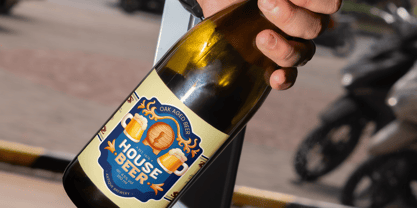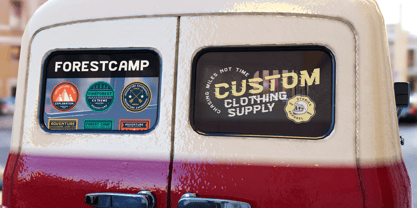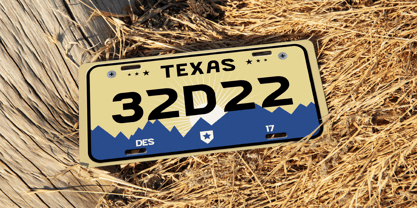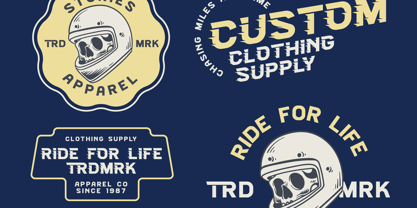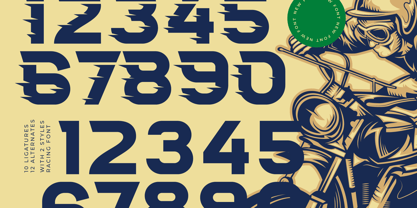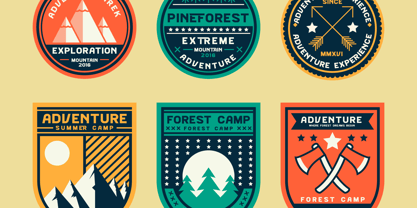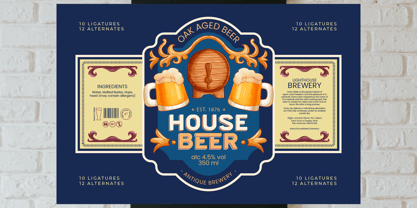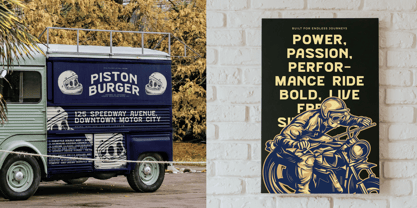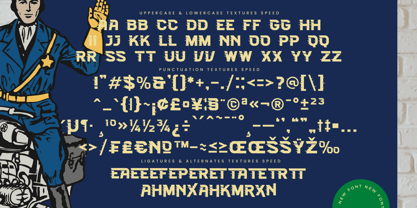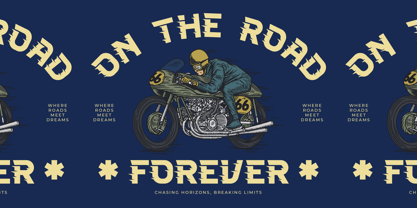
Grand Engine
The Grand Engine Font Family was designed by Heru Utama Putra and published by Timelesstype Studio. Grand Engine contains 4 styles and family package options. More about this family
Grand Engine - Racing Display Font , from Timelesstype , Suitable for any projects such as: logos, branding projects, homeware designs, product packaging, mugs, quotes, posters, shopping bags, t-shirts, book covers, name card, invitation cards, greeting cards, label, photography, watermark, special events, and all your other luxury and beautiful projects that need a Luxury Serif taste.